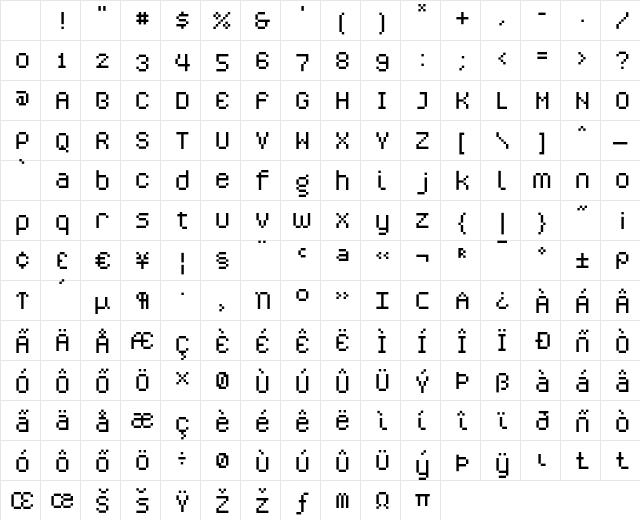
Complete CALIPER 222LC glyph index. Displaying only characters natively supported by CALIPER 222LC font.
CALIPER is a composed and adaptable typeface that performs quietly and consistently across a wide range of design contexts.